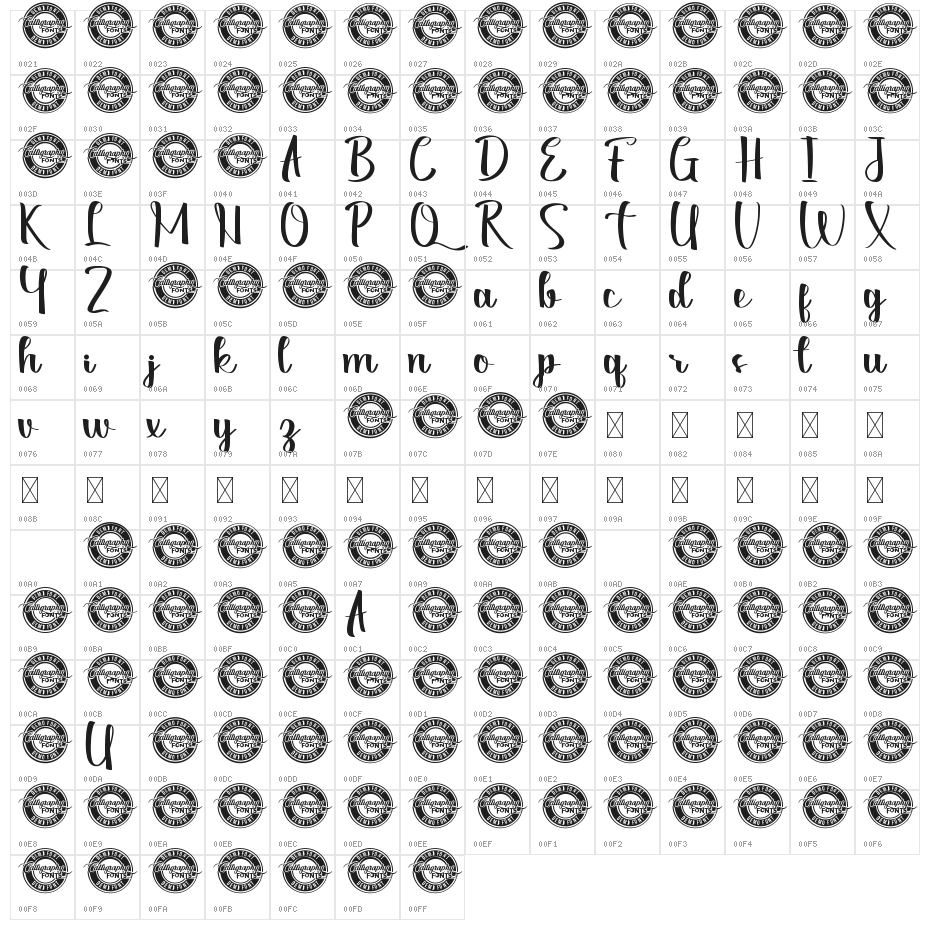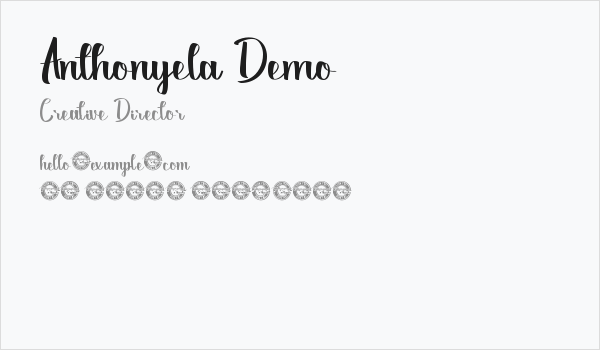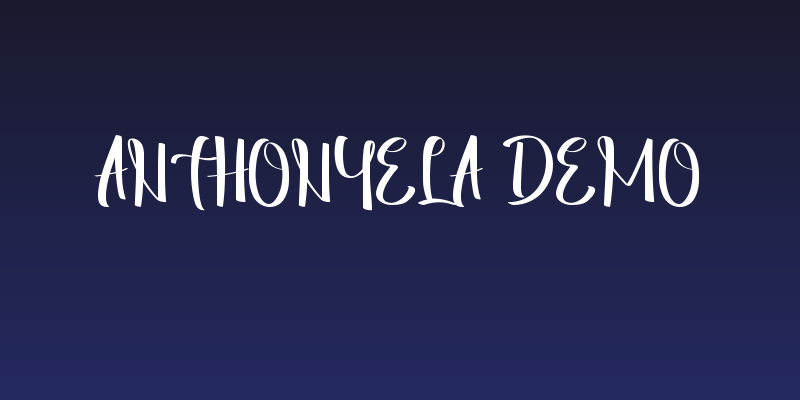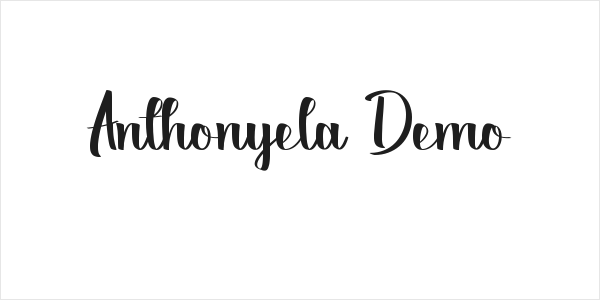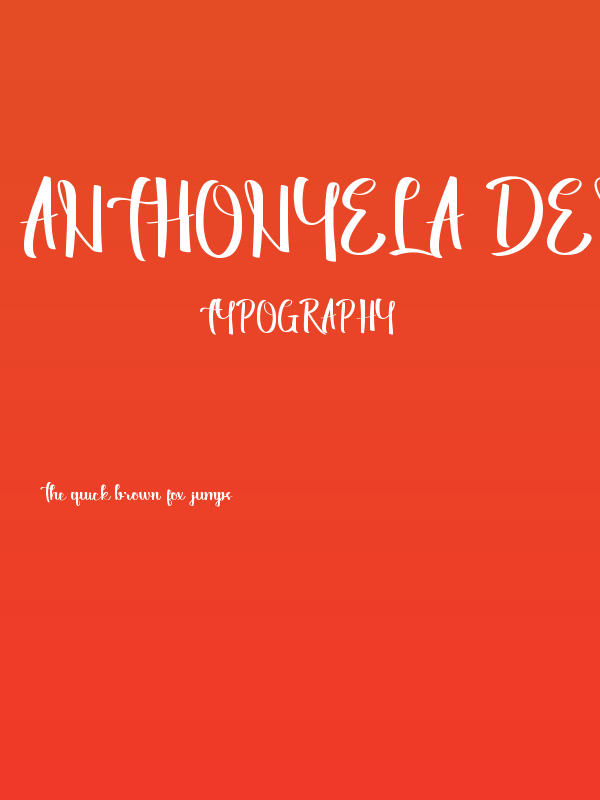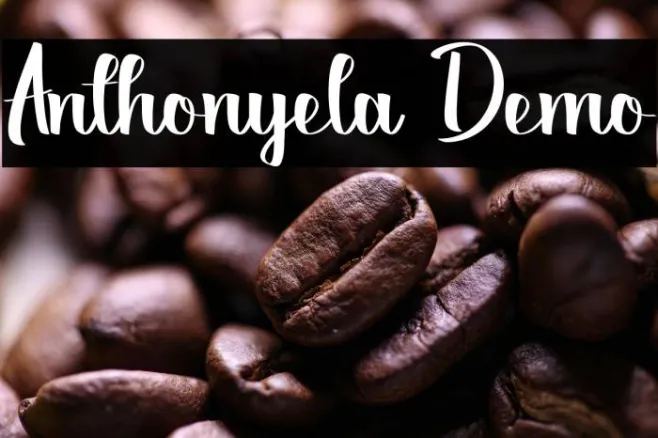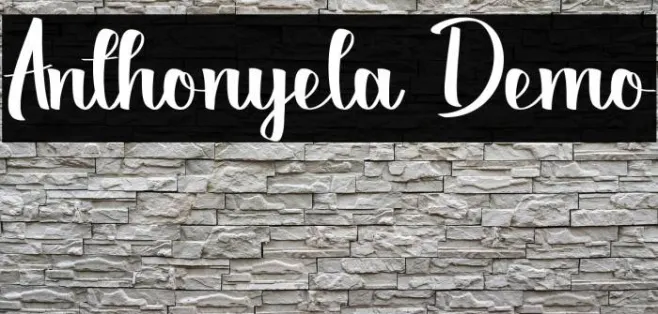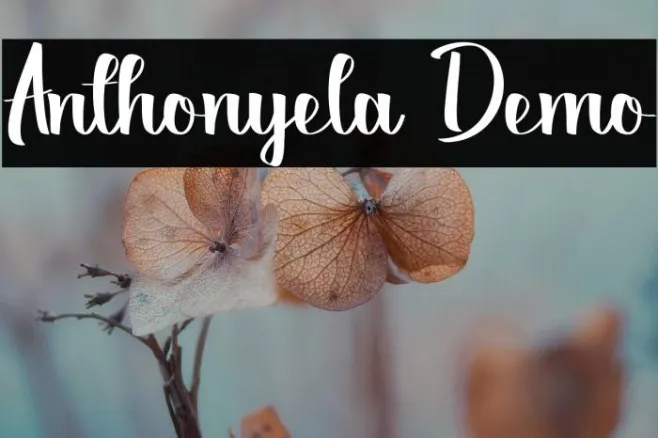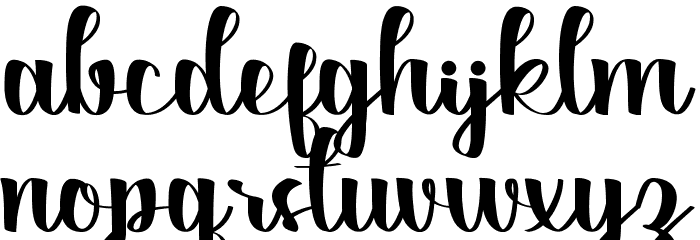
Anthonyela Demo Font
Anthonyela Demo Description
This font features a bold and expressive script style, characterized by its flowing, cursive letterforms. The uppercase letters exhibit a dynamic and elegant flair, with sweeping curves and varying stroke widths that add a sense of movement and sophistication. The lowercase letters maintain a consistent style, with smooth connections and a playful yet refined appearance. The font's overall aesthetic is both modern and artistic, making it suitable for creative and decorative applications. The special characters are seamlessly integrated, maintaining the font's cohesive look. Its bold presence and artistic flair make it ideal for projects that require a touch of elegance and creativity.
| Proposed Projects | Ideal for wedding invitations, branding, logos, greeting cards, and artistic posters. |